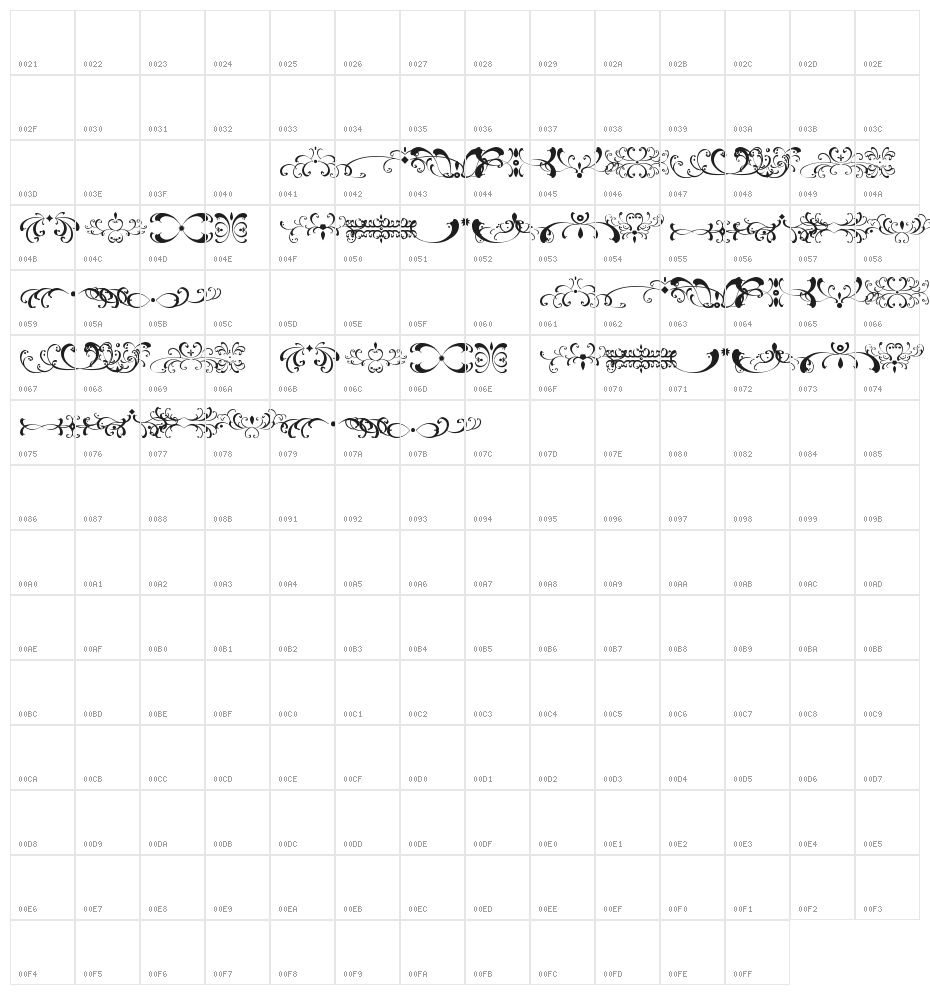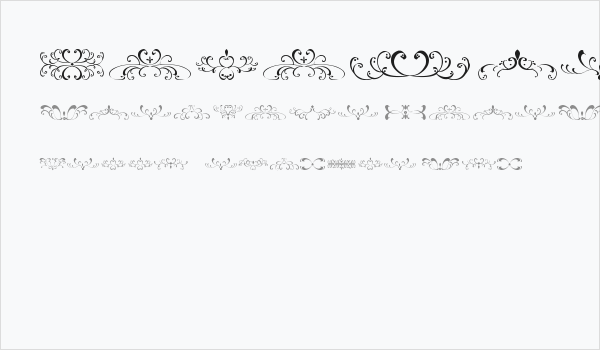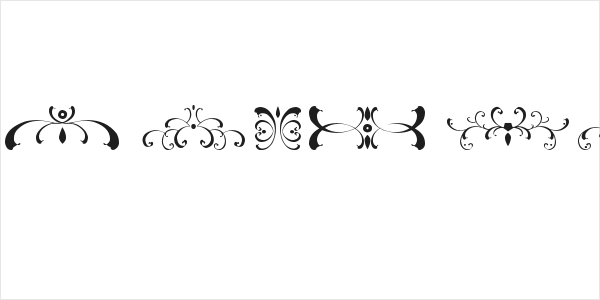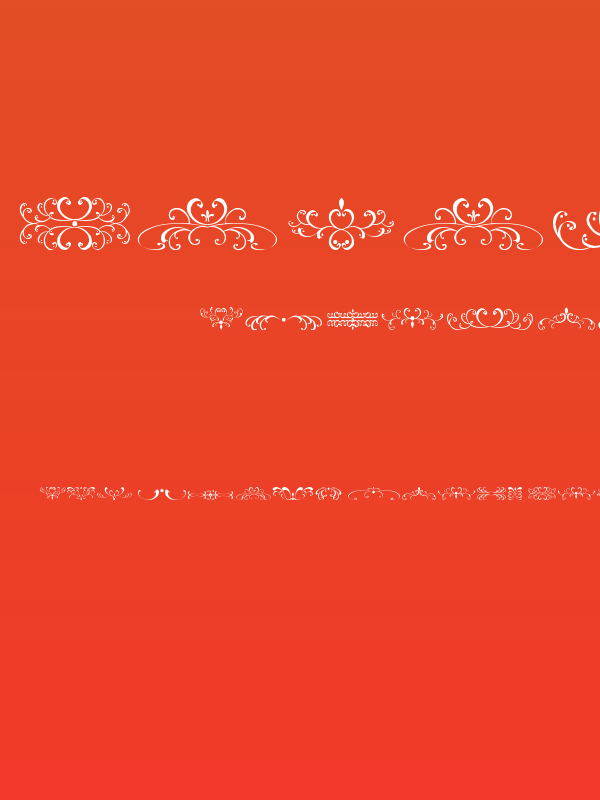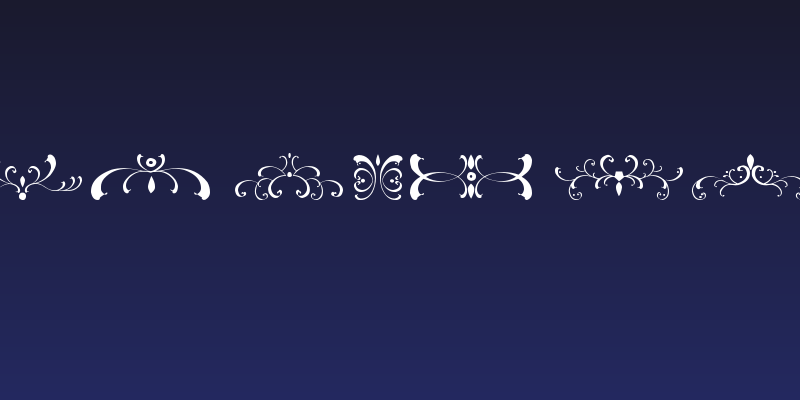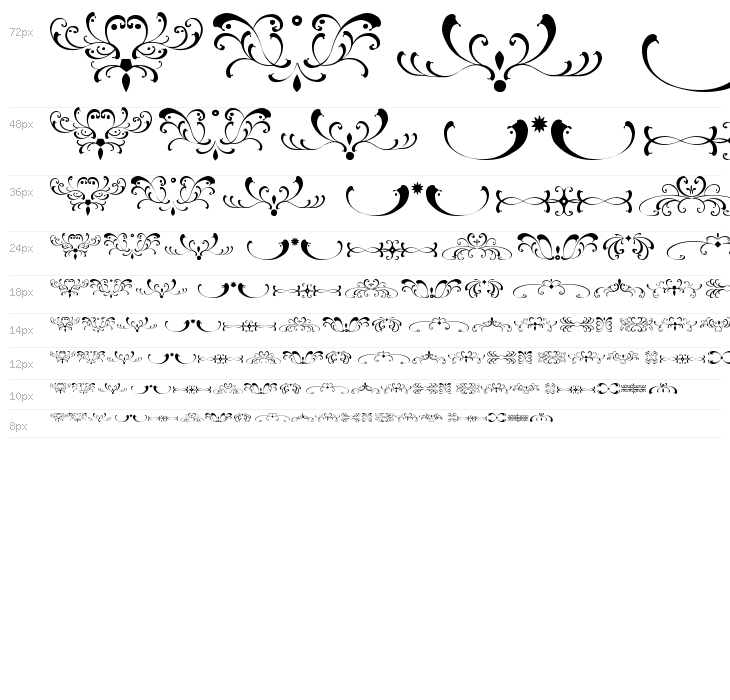
filigrees and ornaments ST Font
filigrees and ornaments ST Description
A highly decorative set of filigree and ornamental glyphs featuring intricate swirls, flourishes, and symmetrical motifs. The elements are detailed and elegant, evoking a vintage or classical aesthetic suitable for embellishments.
| Overall Style | Decorative, Vintage, Elegant |
| Use Case | Borders, Frames, Decorative accents |
| Proposed Projects | Wedding invitations, certificates, decorative borders, luxury branding, vintage packaging, book covers. |